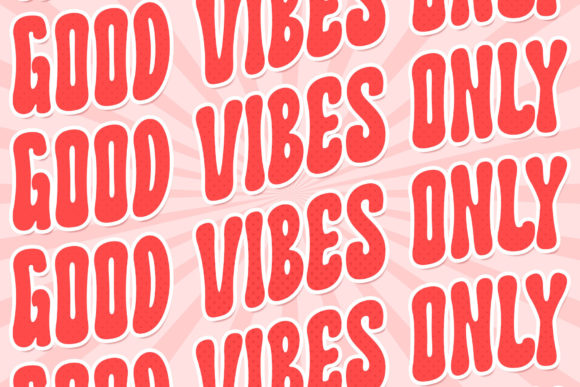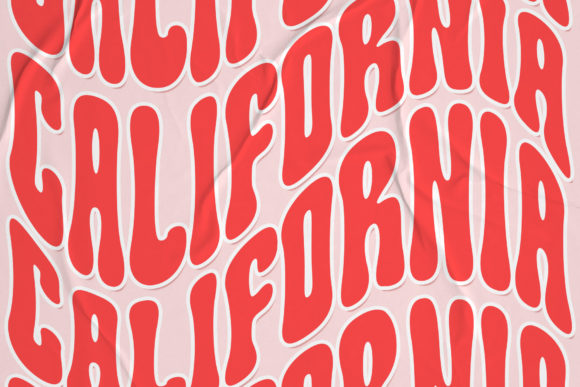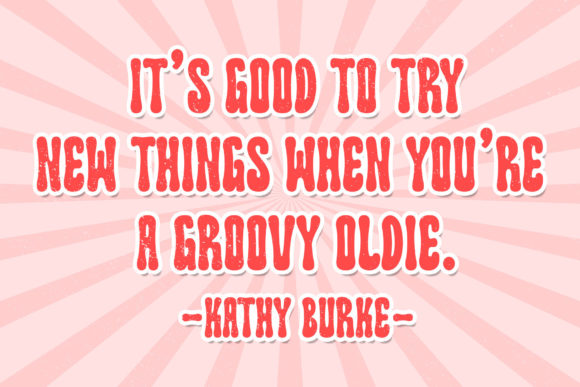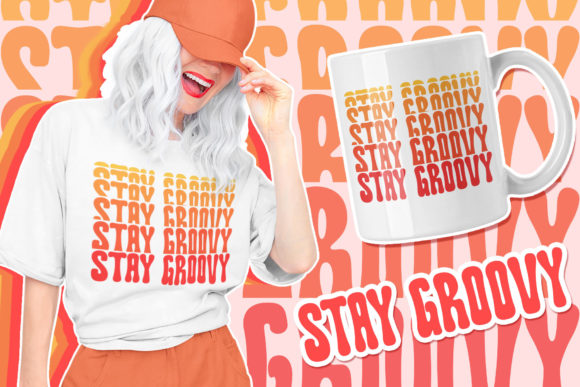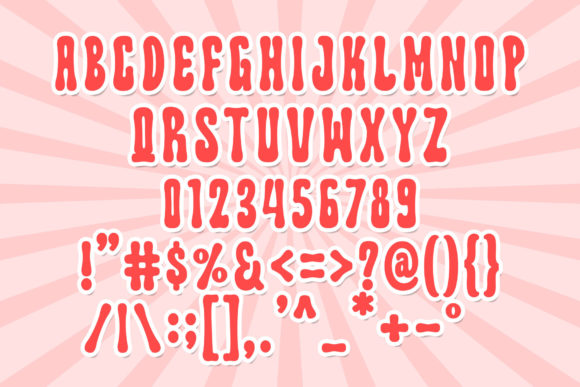
Introduction to Monday Groovy Font Font
Fonts play a crucial role in design, and the Monday Groovy Font font is a typeface that brings both character and versatility to any project. Whether you’re working on a branding project, a website, or a print design, the Monday Groovy Font font offers a unique style that can elevate your work.
MONDAY GROOVY is a Groovy Display Font that contain all caps character and symbol.
With PUA encoded which means you can access all of the glyphs and swashes with ease This font is perfect for creating t-shirts, stickers, cover book, children book, social media post, invitation and much more.
Key Features of Monday Groovy Font Font
Why Choose Monday Groovy Font Font?
The Monday Groovy Font font is more than just a typeface – it’s a design tool that helps you communicate your message with style and clarity. Its unique character set and versatile design make it suitable for a wide range of applications, from elegant invitations to bold headlines.
With its carefully crafted letterforms and balanced proportions, the Monday Groovy Font font ensures readability and visual appeal across all mediums.
What makes Monday Groovy Font font special?
The Monday Groovy Font font stands out with its unique design, exceptional readability, and versatility across various design applications.